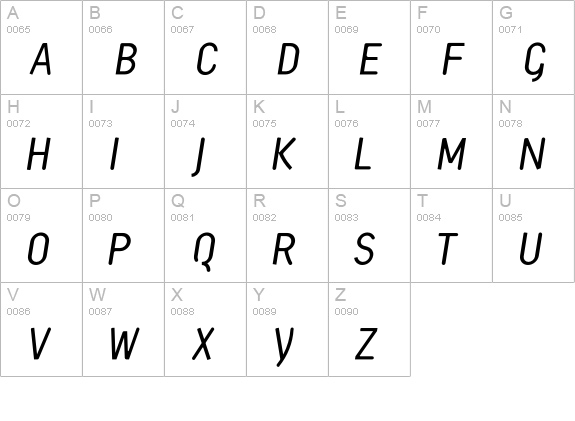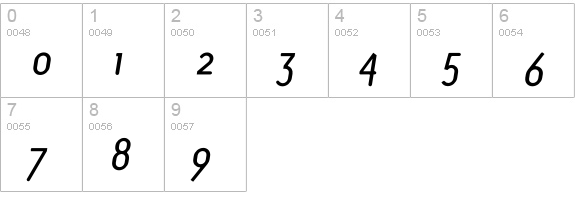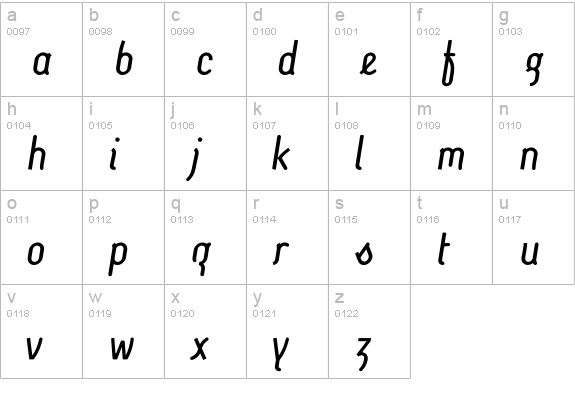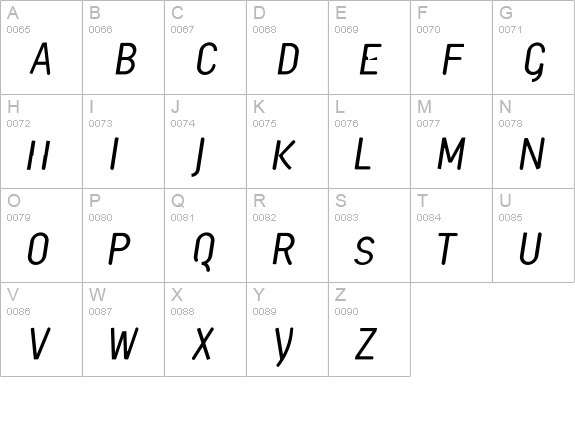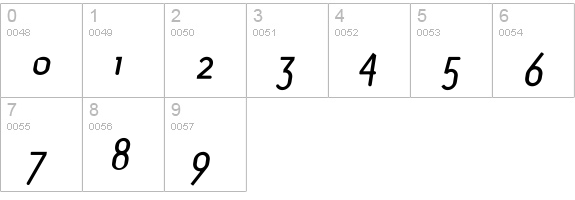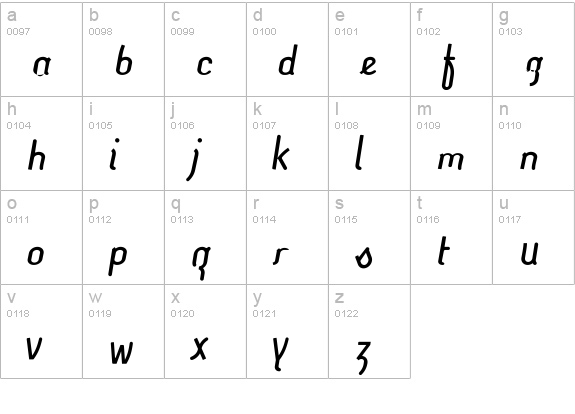
Monolein-Kursiv Font Details
Monolein-Kursiv is a sleek and modern font that brings a touch of elegance to any design project. Its flowing and curvaceous letterforms exude a sense of sophistication and style. The slanted angles of the italic version add a dynamic flair, making it perfect for adding a touch of personality to your text. What makes Monolein-Kursiv even more appealing is that it is completely free to download at FontsMarket.com. This means you can easily access this beautiful font for your personal or commercial projects without any cost. So why wait? Elevate your designs with Monolein-Kursiv today and make a lasting impression with its unique and captivating aesthetic.